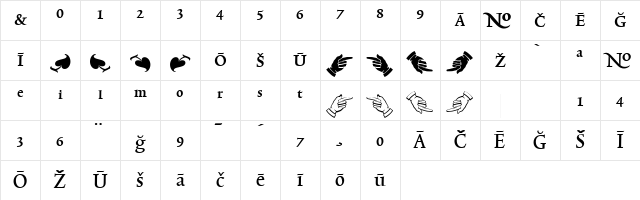
Complete TriniteNo1 MediumCondensedPi glyph index. Displaying only characters natively supported by TriniteNo1 MediumCondensedPi font.
TriniteNo1 is a composed and adaptable typeface that performs quietly and consistently across a wide range of design contexts. Its narrow stance lets it pack a punch even in space-constrained designs.
Who designed the TriniteNo1 MediumCondensedPi font?
This font was published by Copr. The Ensched Font Foundry. Check the technical specs section for copyright and designer details.